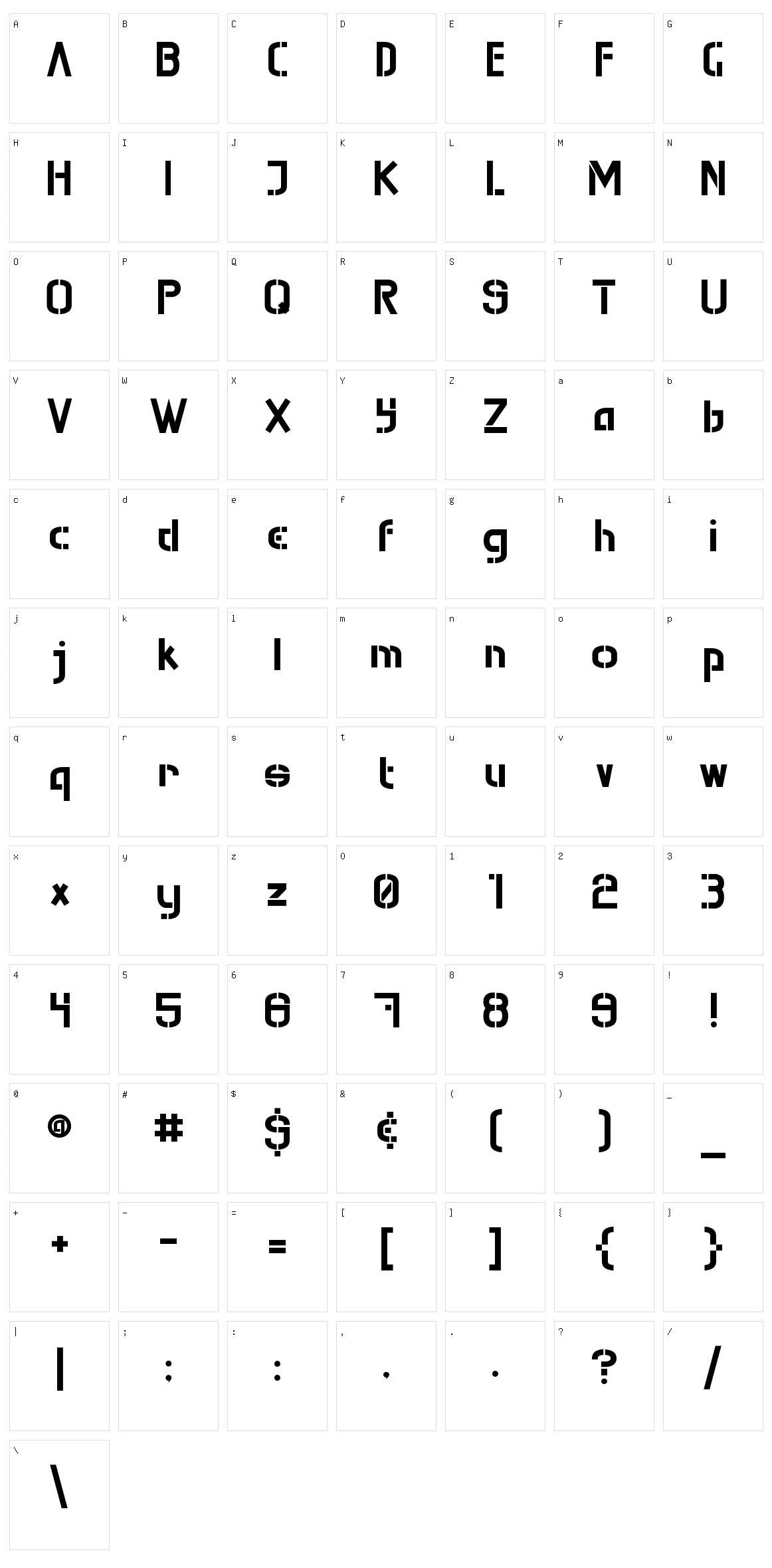
The free font Mura Knockout is carefully designed by Michael Muranaka, showcasing a thoughtful balance of creativity and usability and falls under the Stencil font style. When you download the ZIP file, it contains only 7.81 KB of font files, making it lightweight and quick to download. Please review the license details below to understand permitted usage and distribution rights. If license information is not available, we recommend using this font for personal projects only or contacting the author directly for commercial usage permissions.